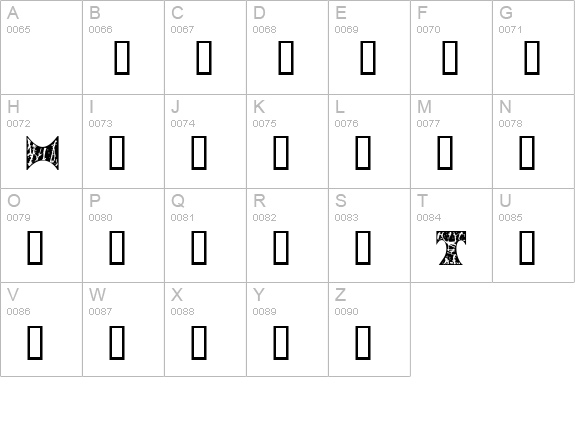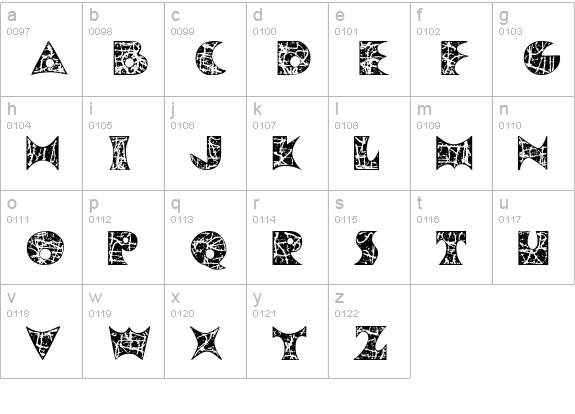
Pollock MF Initials Font Details
Pollock MF Initials font is a stunning display typeface that exudes artistic flair and sophistication. Inspired by the unique brush strokes of the renowned painter Jackson Pollock, this font features bold, energetic letterforms that make a statement on any design project. The intricate details and intricate design elements of Pollock MF Initials font add a touch of elegance and creativity to your work. Best of all, Pollock MF Initials font is available for free download at FontsMarket.com. Whether you're working on a branding project, poster design, or any other creative endeavor, this font is sure to elevate your work and leave a lasting impression. Embrace the artistic spirit of Pollock MF Initials font and unleash your creativity today!